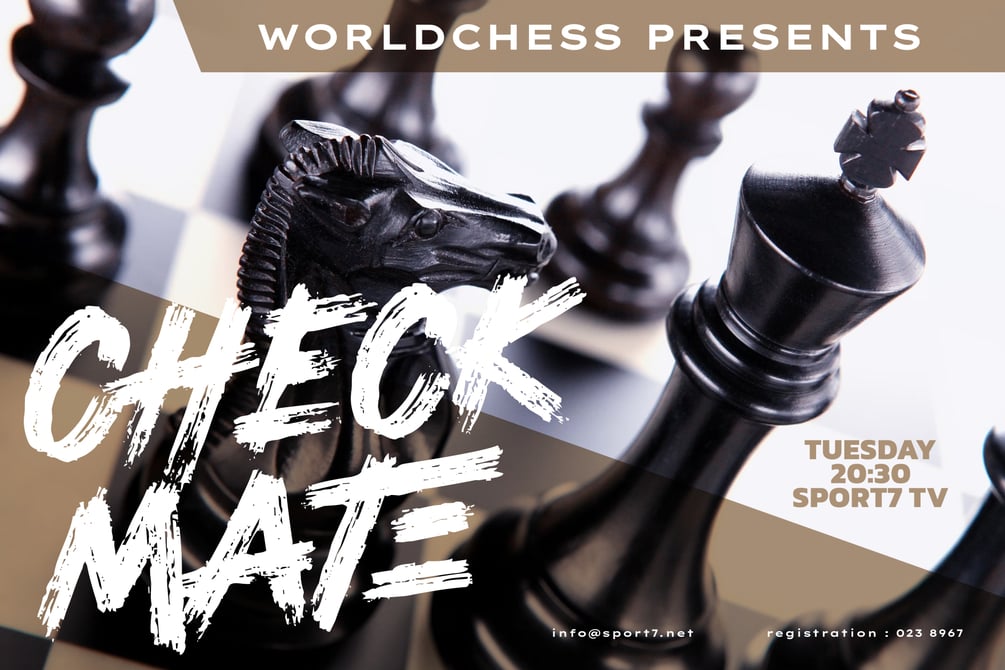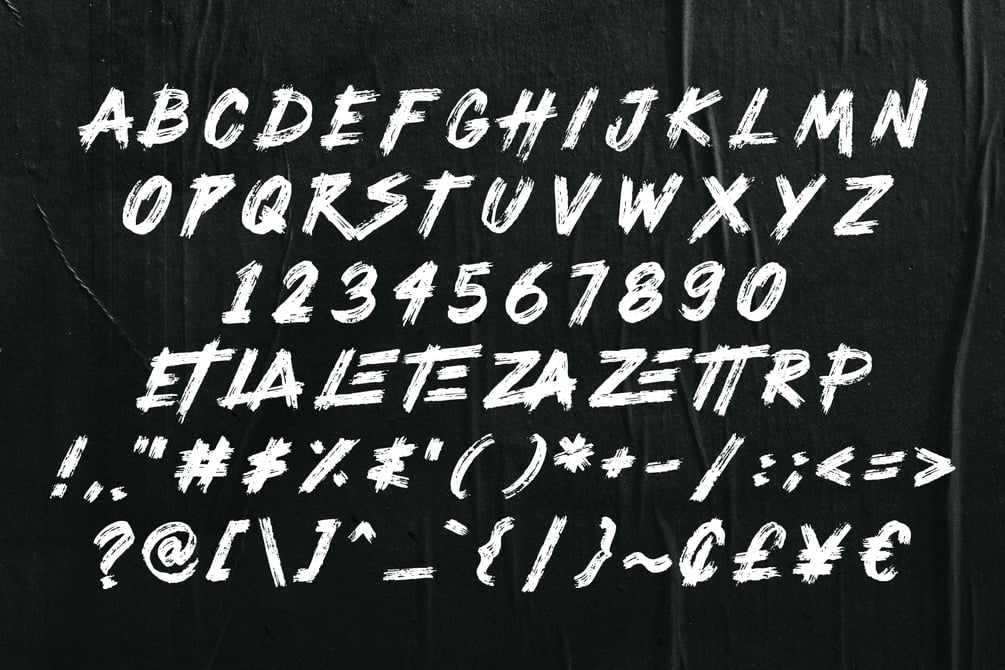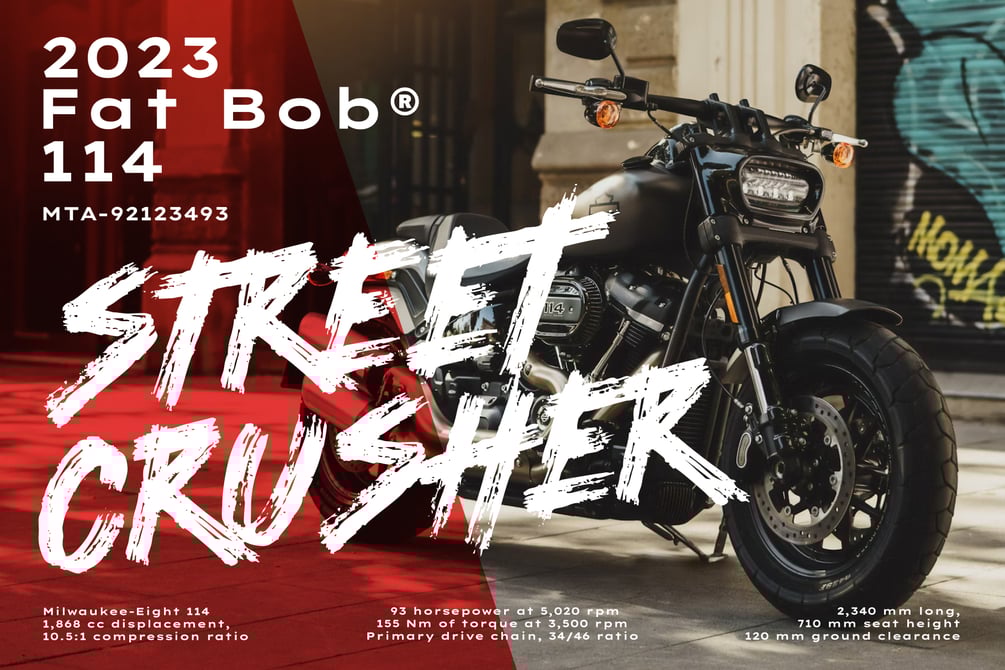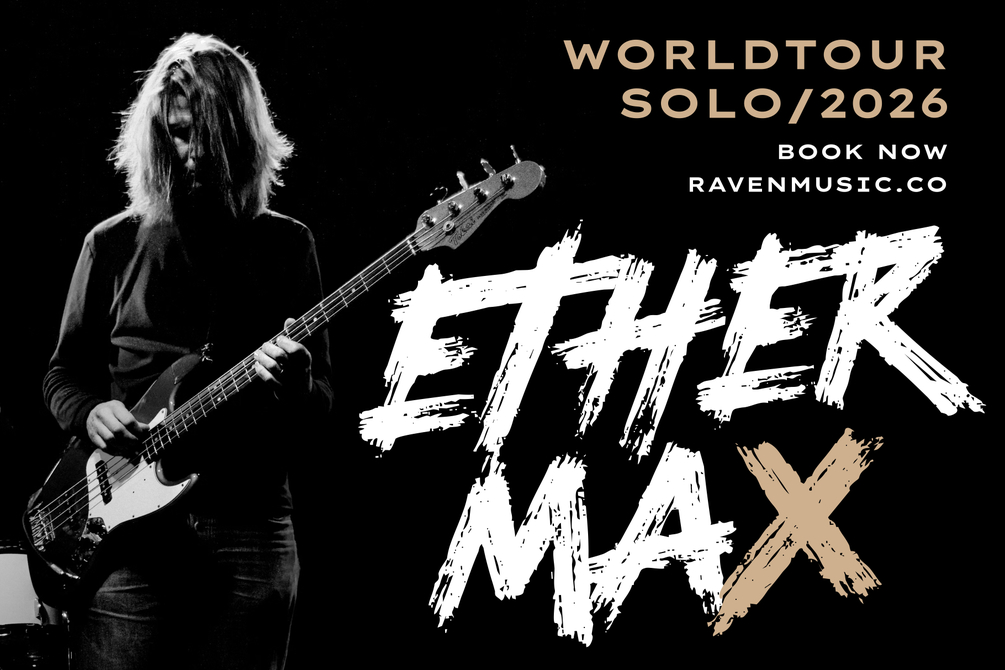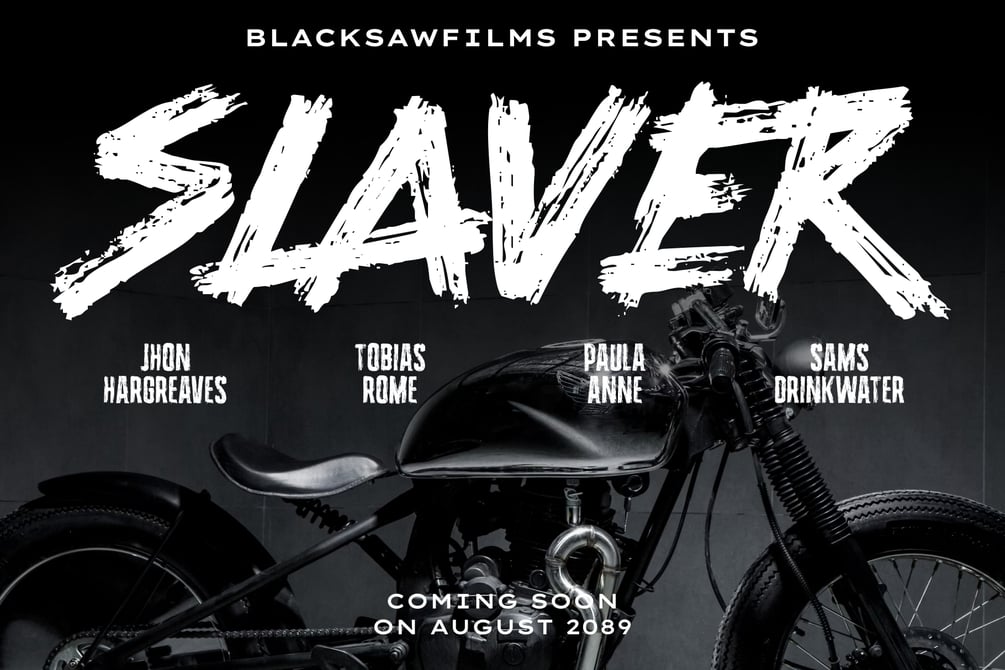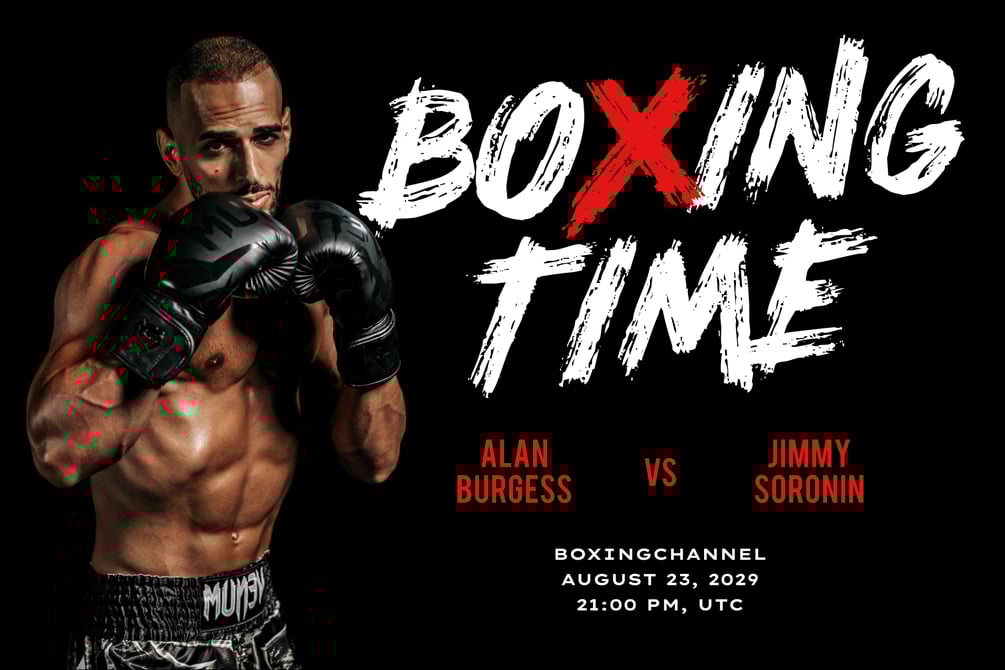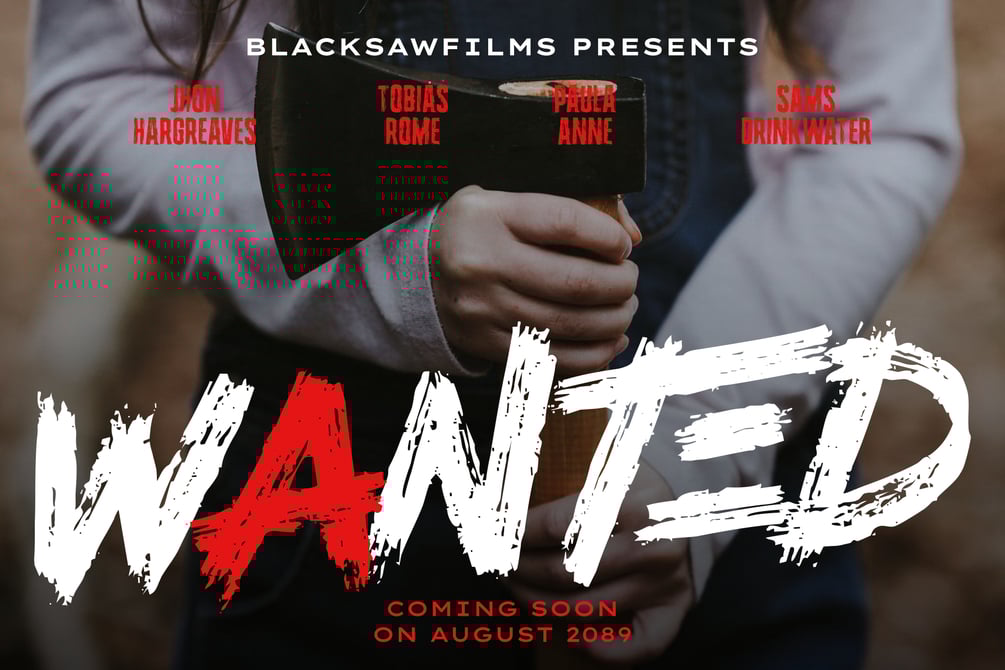
STREET CRUISER - Dry Brush Font
Introducing STREET CRUISER - Dry Brush Font
STREET CRUISER is a dry brush font with a bold and rough style in a dry brush texture. This texture is very detailed. Very suitable for logos, product branding, printable templates, posters, flyers, shirts, or for text overlay to any background image. STREET CRUISER is a dry brush font comes in All caps, with punctuation, numerals and ligatures.
Features :
- All Caps
- Numbers & Punctuation
- Ligatures